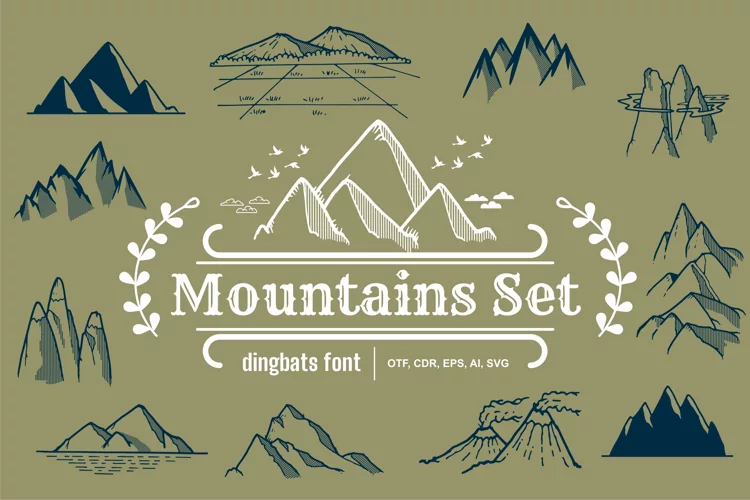
Mountains set
Mountains Set is a useful and beautiful dingbats font. Whether you’re using it for crafting, digital designing, presentations, or greeting card making, it is the perfect font for you!